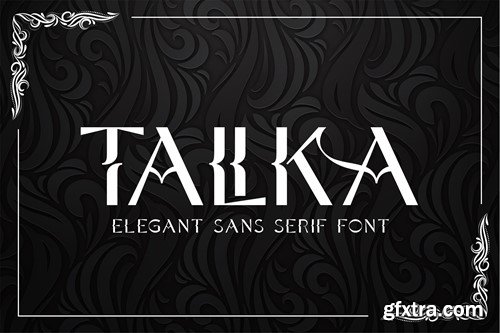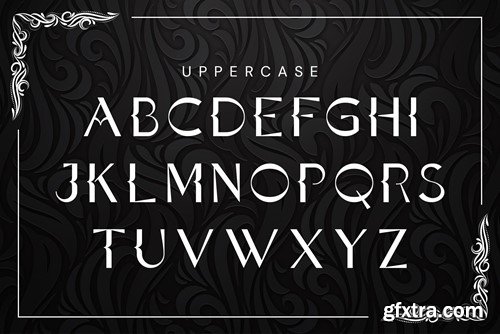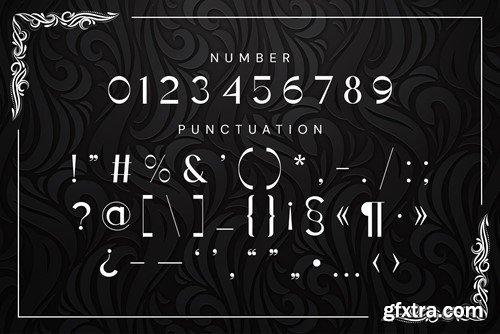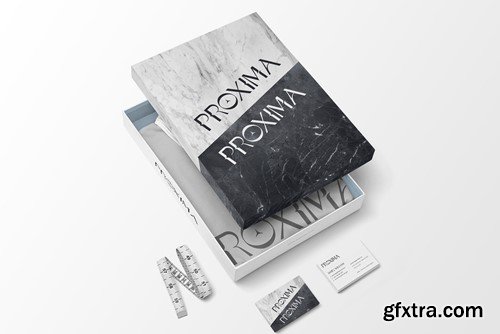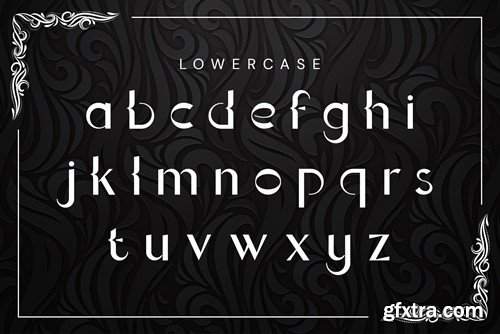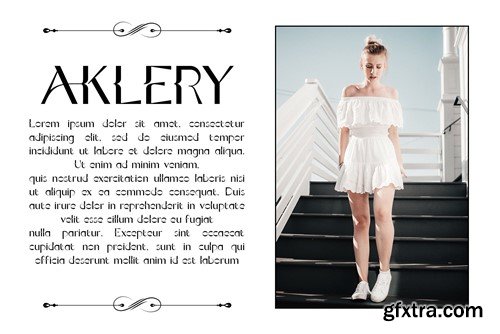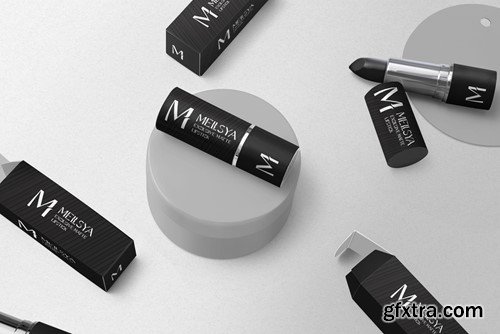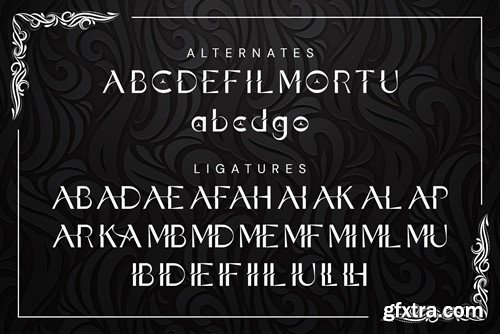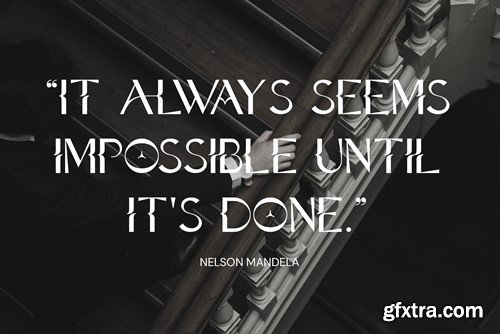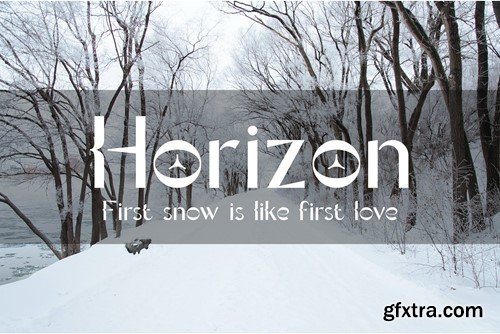
Talika Sans Serif Font LFTENGL
Talika Sans Serif Font
Talika is a modern sans serif font. This font is made in classic proportions and decorated with elegant decorations. This font is suitable for fashion and style designs. brand names and various other designs.Talika is a modern sans serif font. This font is made in classic proportions and decorated with elegant decorations. Its stylish alternation and binding make this font the perfect partner for any project.
• Ligature
• Uppercase and lowercase letters
• Numbering and Punctuation